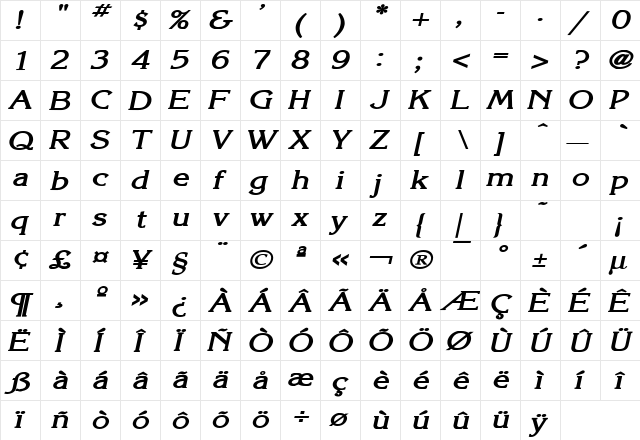
Keira Wide Bold Italic
Design Context for Keira Wide Typeface
Keira Wide takes a measured approach to typography — its balanced proportions and neutral character make it a reliable workhorse for both digital and print work. The dynamic lean of this cut emphasises speed and emphasis in any layout. Its bold stroke weight gives it real presence on the page.
Pro Tip: Use Keira Wide for emphasis, pull quotes, and subheadings where its slanted energy can add rhythm to the layout.